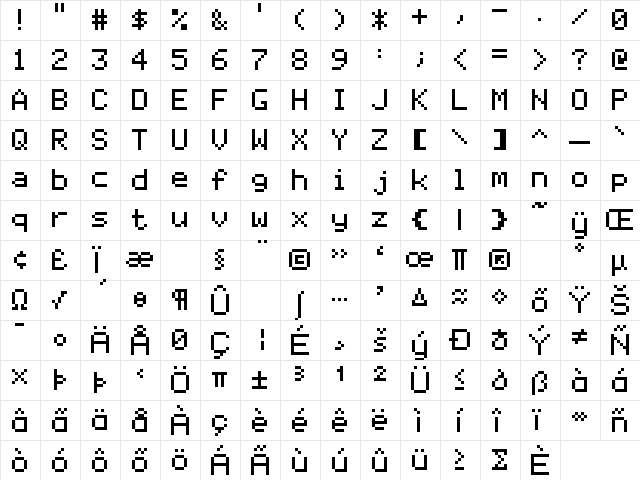
AppleII remix Regular
Design Context for AppleII remix Typeface
AppleII remix takes a measured approach to typography — its balanced proportions and neutral character make it a reliable workhorse for both digital and print work.
Pro Tip: Use AppleII remix in both headline and body roles to test its range before committing to a single application.